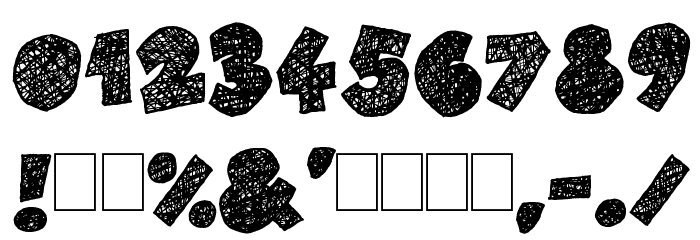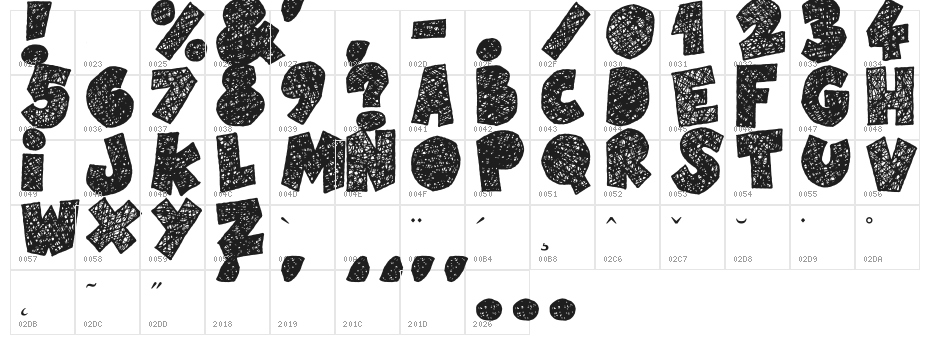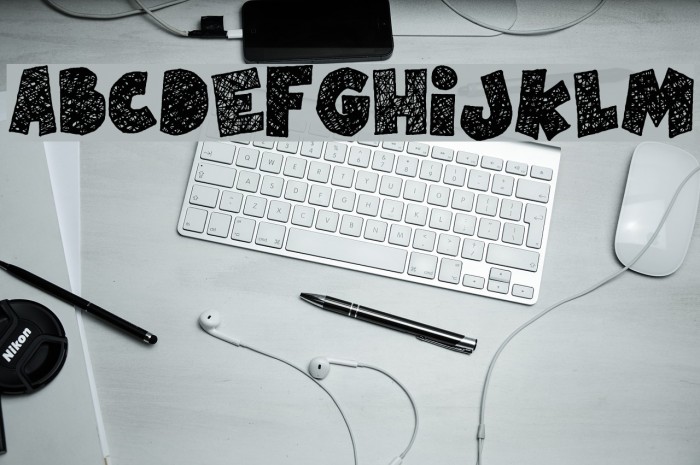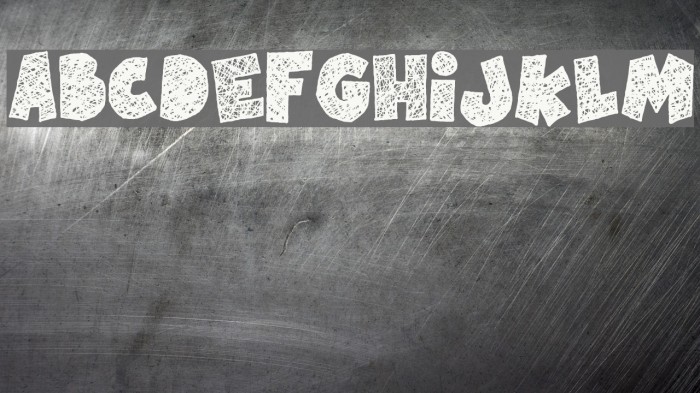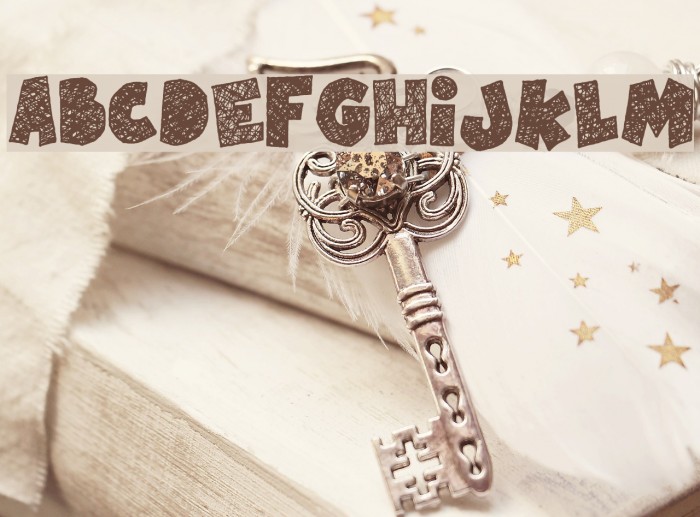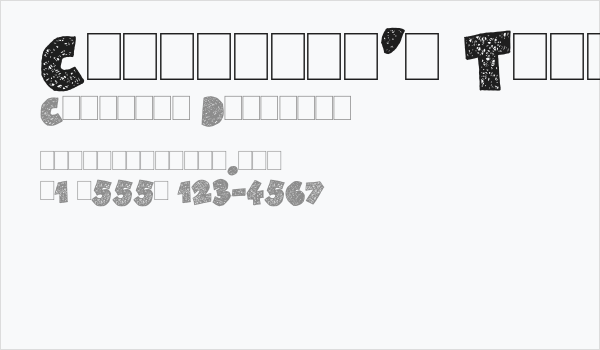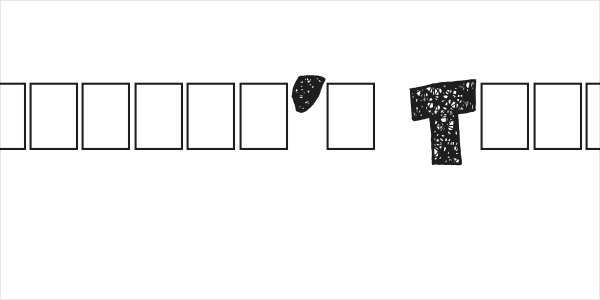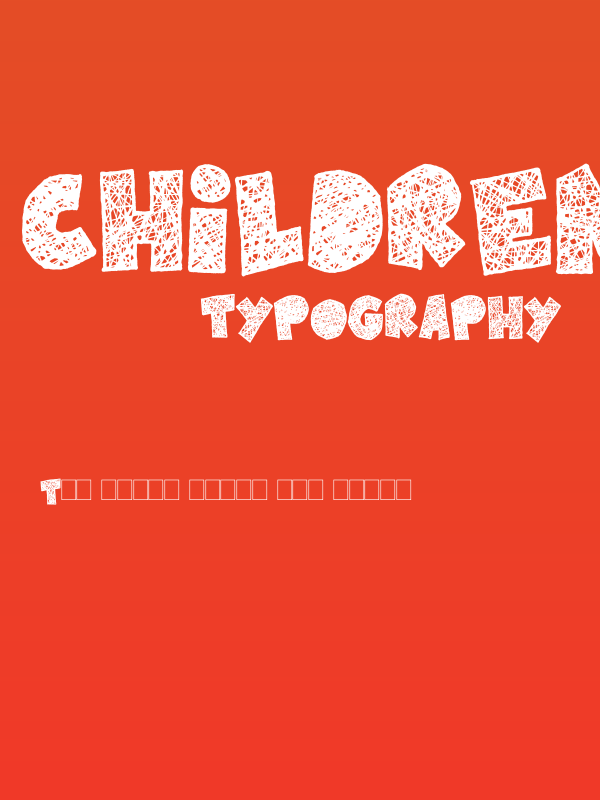
Children's Theater Font
Children's Theater Description
This playful and energetic font features bold, irregular shapes with a textured, hand-drawn appearance. The uppercase letters are characterized by their chunky, whimsical forms, each filled with a scribble-like pattern that adds a sense of fun and creativity. The numbers and special characters follow the same lively style, making them perfect for capturing attention. The font's unique design is reminiscent of children's drawings, evoking a sense of innocence and imagination. Its boldness ensures it stands out, while the uneven edges and playful patterns give it a dynamic, youthful feel.
Overall StylePlayful, Youthful, Creative
Proposed ProjectsPerfect for children's book covers, playful posters, educational materials, and toy packaging.